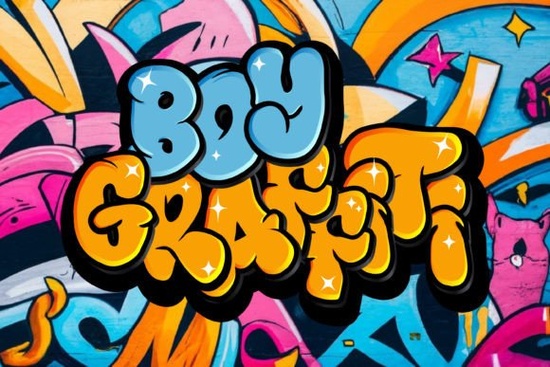
If you're looking for a graffiti font that feels authentic not cartoonish or overdesigned the Boy Graffiti Font is worth your attention. It’s built for real-world use: bold enough for posters and t-shirts, legible at small sizes for stickers or social graphics, and detailed enough to hold up in vector cuts or screen prints. Unlike some graffiti-style fonts that rely heavily on swashes or random splatters, this one balances street energy with practical readability making it especially useful for print-on-demand sellers, crafters cutting vinyl, and designers building cohesive brand assets.
What kind of projects work best with Boy Graffiti Font?
This font shines where urban attitude meets clarity. Think t-shirt designs for youth apparel brands, event flyers for local music nights, skate shop signage, or even playful packaging for indie snack brands. Because its letterforms have consistent weight and spacing, it scales well across mediums from embroidery digitizing (with simplified versions) to large-format wall decals. It’s not meant for body text or formal documents, but it holds its own as a headline, logo lockup, or accent typeface paired with a clean sans-serif.
For example, pairing Boy Graffiti Font with a neutral geometric font creates contrast without visual noise. You’ll often see it used alongside subtle halftone textures or muted background colors letting the font’s character speak without competing elements.
How does it compare to other popular graffiti-style fonts?
Not all graffiti fonts are created equal. Some lean too far into “cartoon tag” territory, while others sacrifice legibility for complexity. Boy Graffiti Font sits in a sweet spot: it includes alternate characters and stylistic sets (like outlined or shadowed variants), but avoids excessive ornamentation that can break in Cricut or Silhouette software. That makes it more reliable than flashier options when you’re prepping files for cutting machines or sublimation printing.
One thing to keep in mind: because it’s a display font, avoid using it below 16pt in digital layouts or under 0.25" tall in physical cut files smaller sizes may lose definition, especially in stencil or single-line cuts. For those cases, consider simplifying the design first or switching to a bolder, more open alternative.
Bottom line: Boy Graffiti Font delivers consistent, usable street-style typography not just visual flair. It’s designed to work, not just impress. If your next project needs attitude with reliability, this is one of the more versatile graffiti fonts we’ve tested across real crafting and small-business workflows.